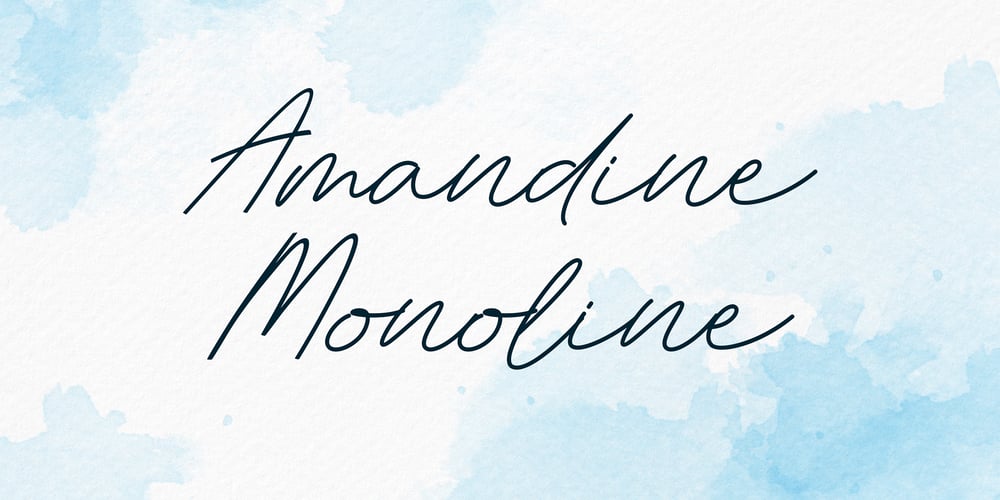
Amandine Monoline
Amandine Monoline font
Amandine Monoline Font Family was designed by Hero and published by UICreative. Amandine Monoline contains 1 styles and family package options. Introducing our new product the name Salvager Amandine Monoline Signature Font. Modern Handwritten font that feels beautiful classy, elegant, and modern. This font is perfectly suited for a wide variety of projects, such as signature, stationery, logo, wedding, typography quotes, magazine or book covers, website headers, clothing, branding, packaging design, and more. Also for fashion-related branding or editorial design and displays both masculine and feminine qualities.